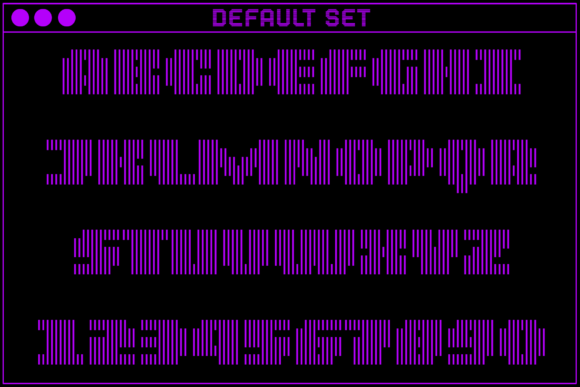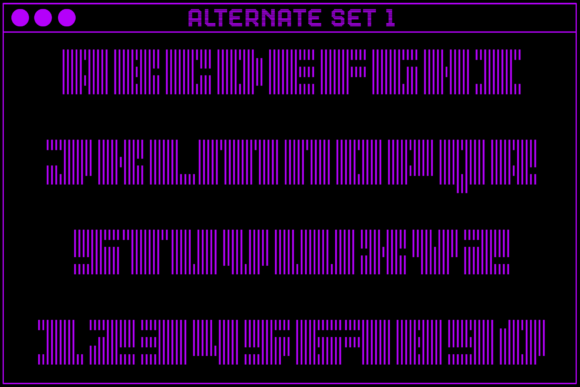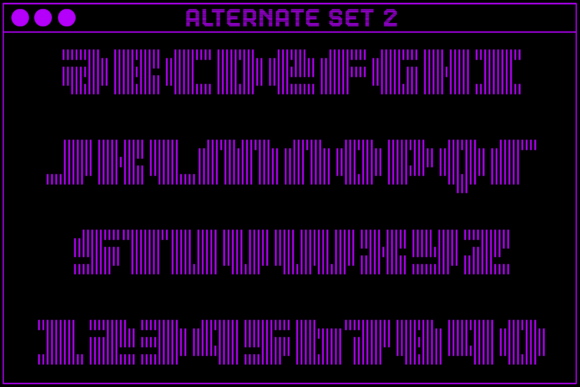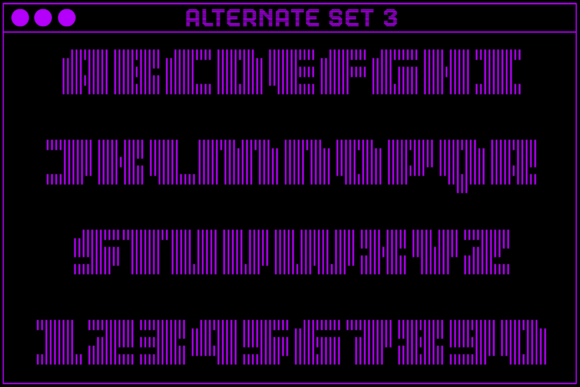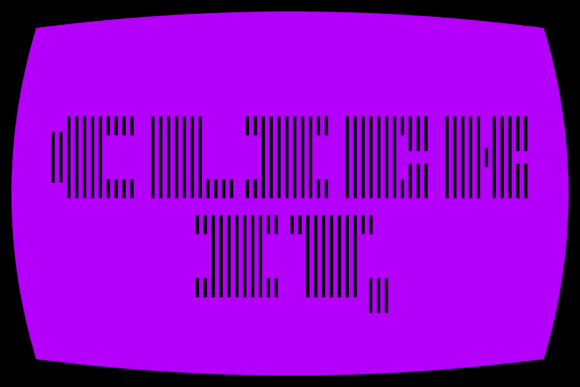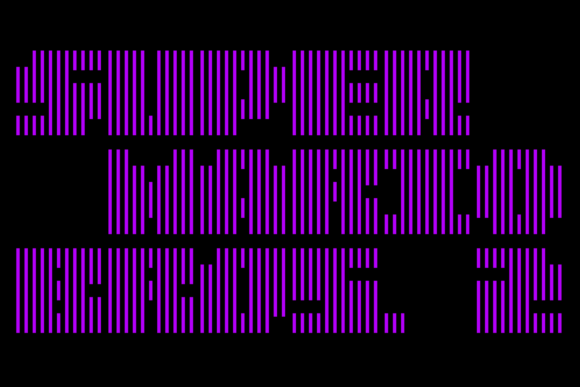
Introduction to MultiType Lines Display Bold 3 Font
MultiType Lines Display Bold 3 is a cool, uniquely shaped, pixelated decorative font.
Add a distorted and trendy touch to your designs with this unusual pixel font MultiType Lines Display Bold 3 is PUA encoded, which means you can access all glyphs and swashes with ease.
Key Features of MultiType Lines Display Bold 3 Font